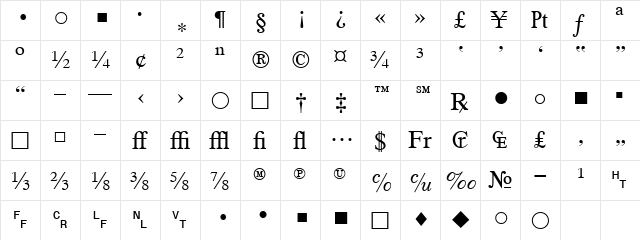
LotusWP Type Roman
Design Context for LotusWP Type Typeface
LotusWP Type takes a measured approach to typography — its balanced proportions and neutral character make it a reliable workhorse for both digital and print work.